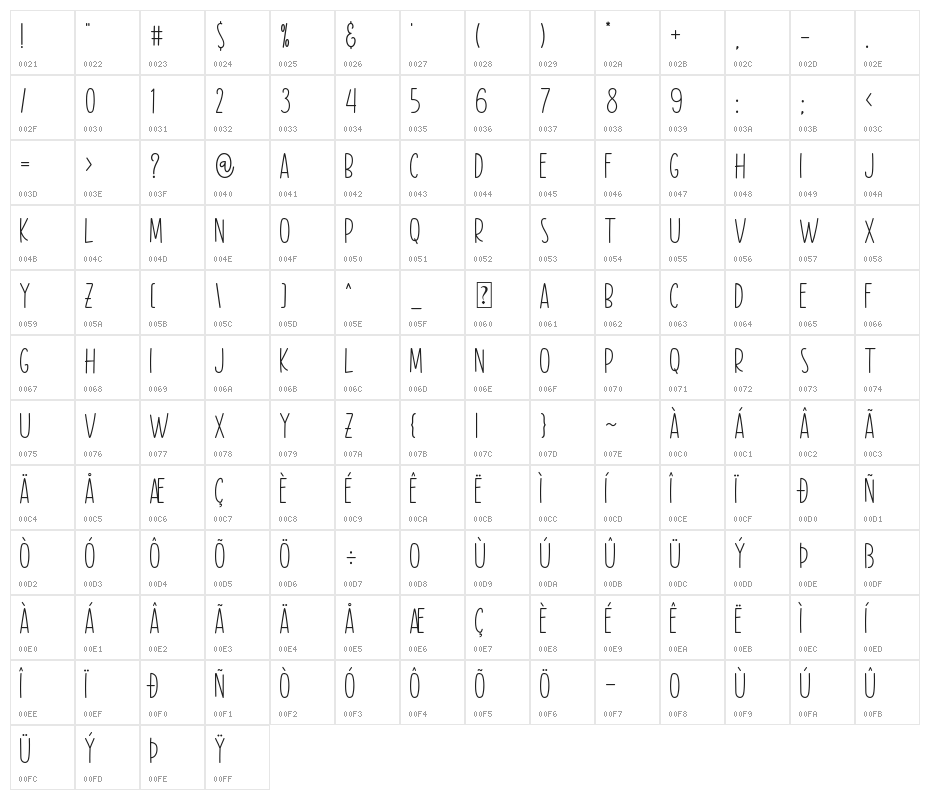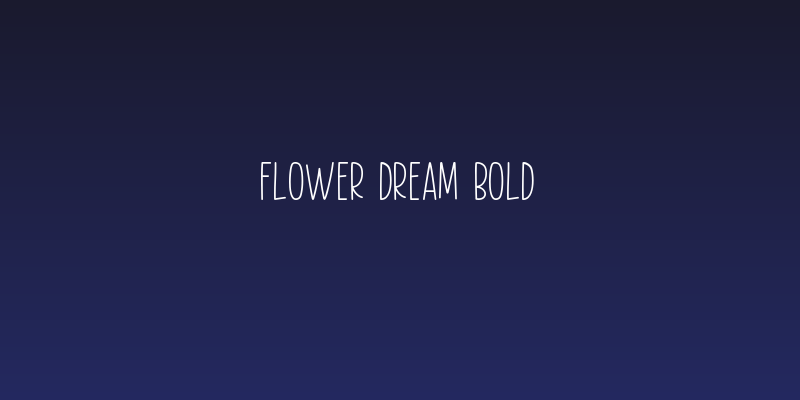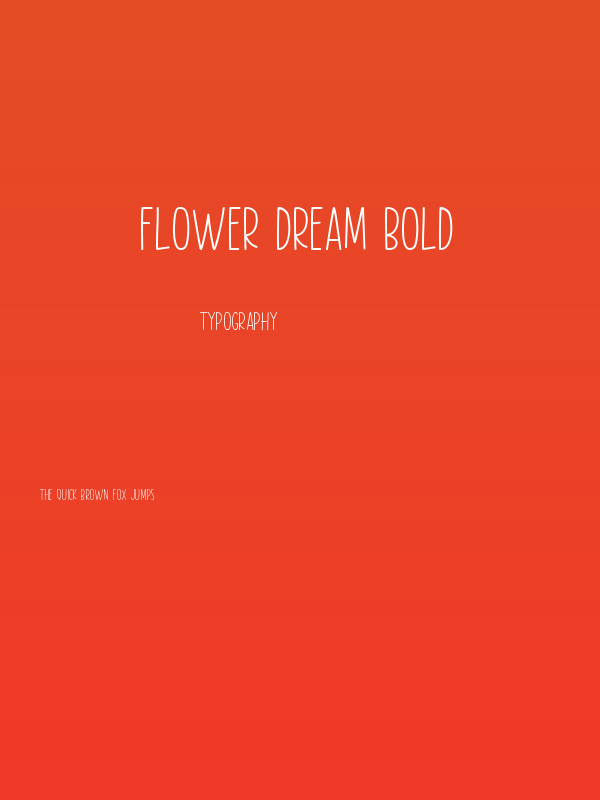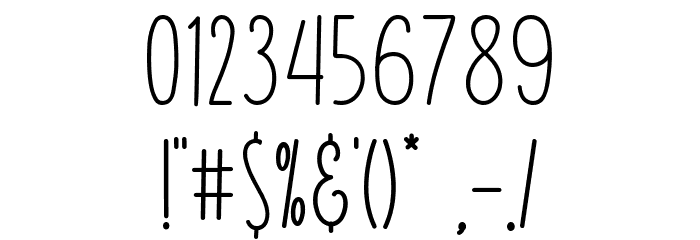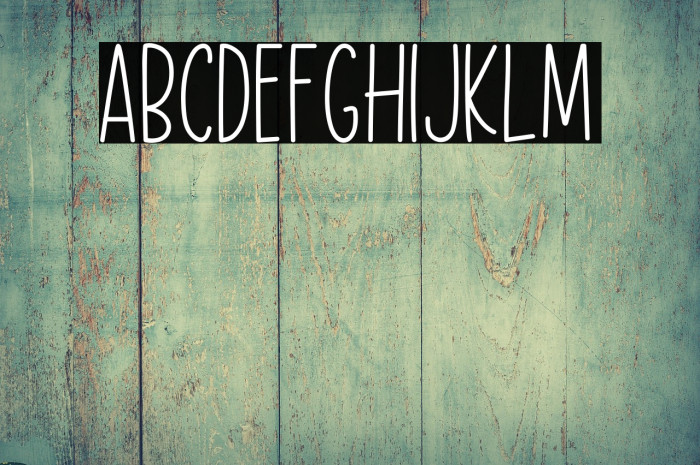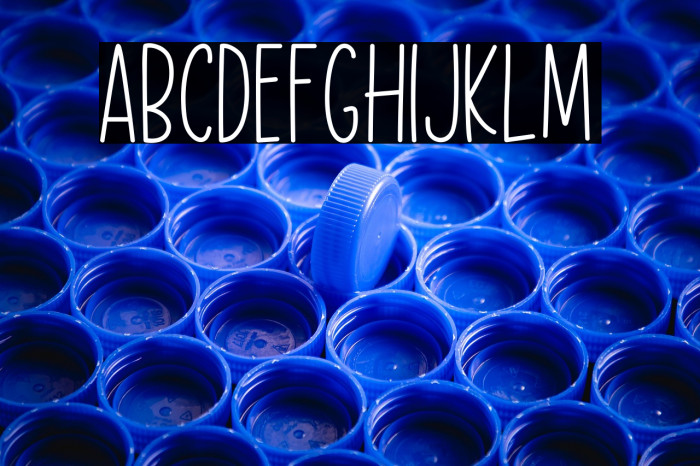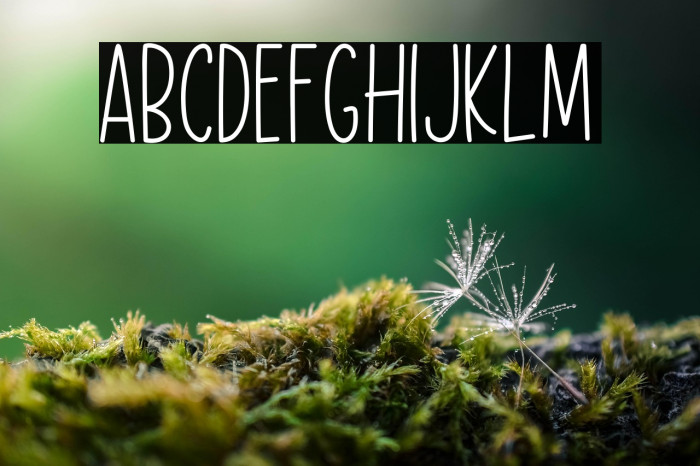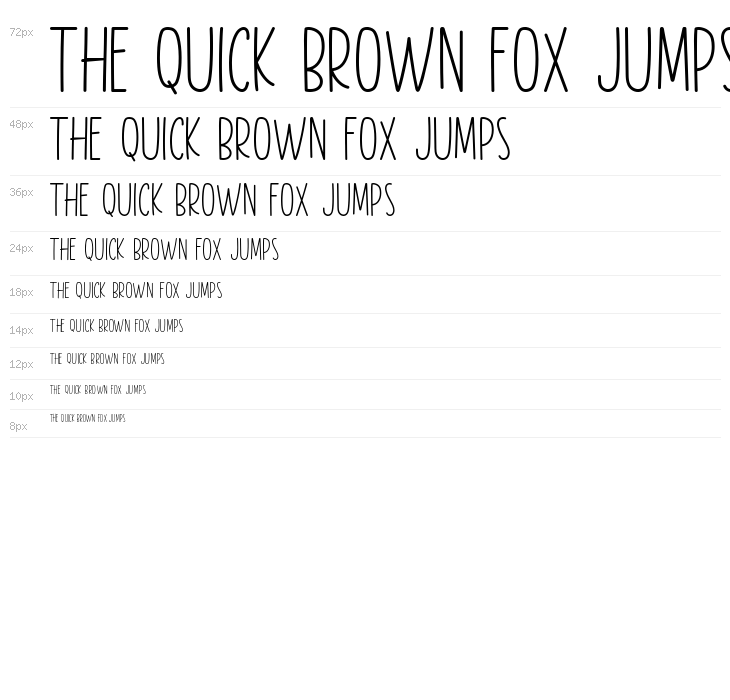
Flower Dream Bold Font
Flower Dream Bold Description
This font features a playful and whimsical design, characterized by its tall, narrow letters with a hand-drawn appearance. The strokes are consistent in width, giving it a uniform look, while the slight irregularities in the curves and lines add a charming, informal touch. The uppercase and lowercase letters maintain a cohesive style, with rounded edges and a slight slant that enhances its casual feel. The numerals and special characters follow the same design principles, ensuring a harmonious overall appearance. This font is ideal for projects that require a friendly and approachable aesthetic.
| Proposed Projects | Ideal for children's books, greeting cards, playful branding, and casual invitations. |